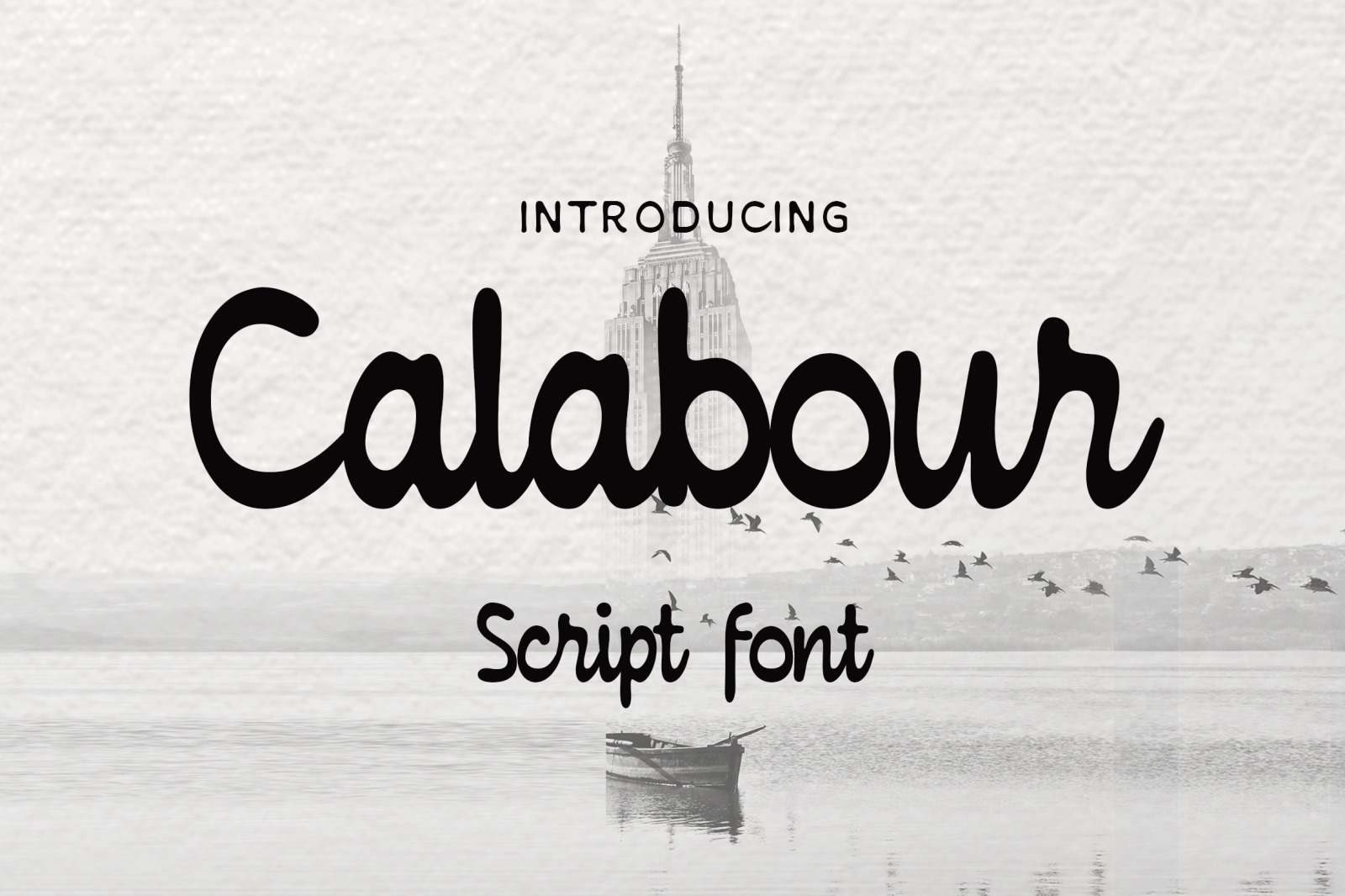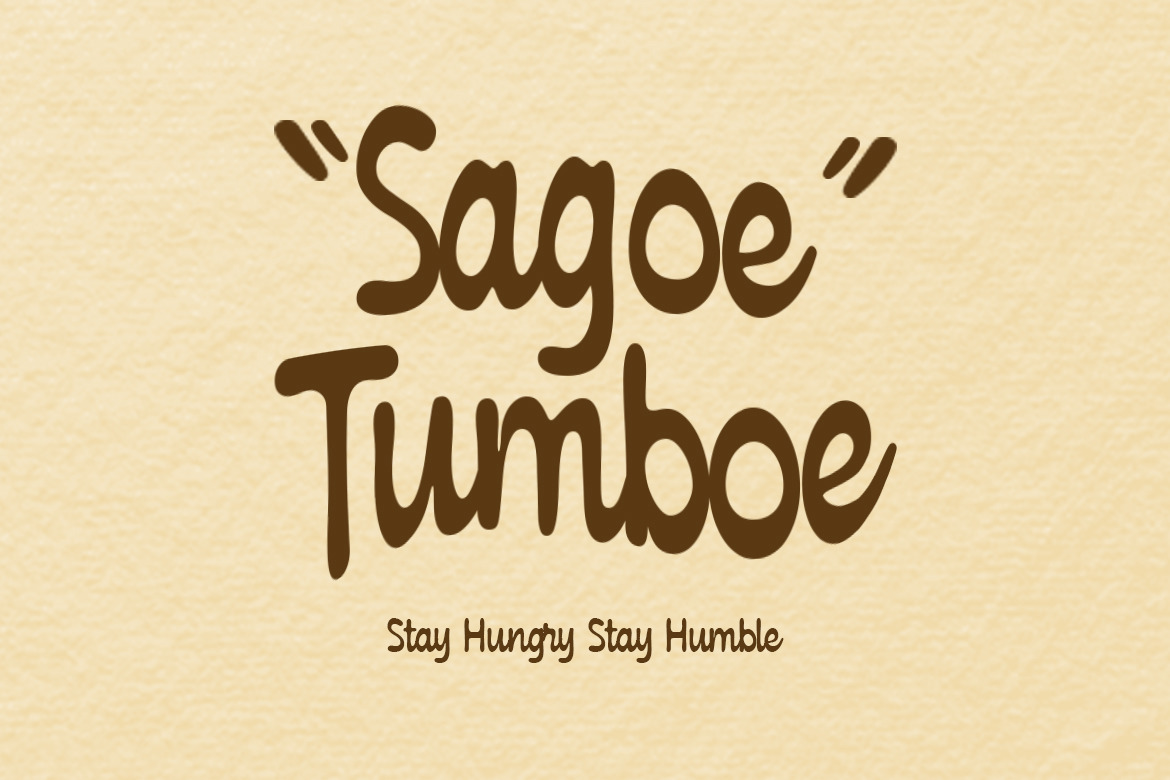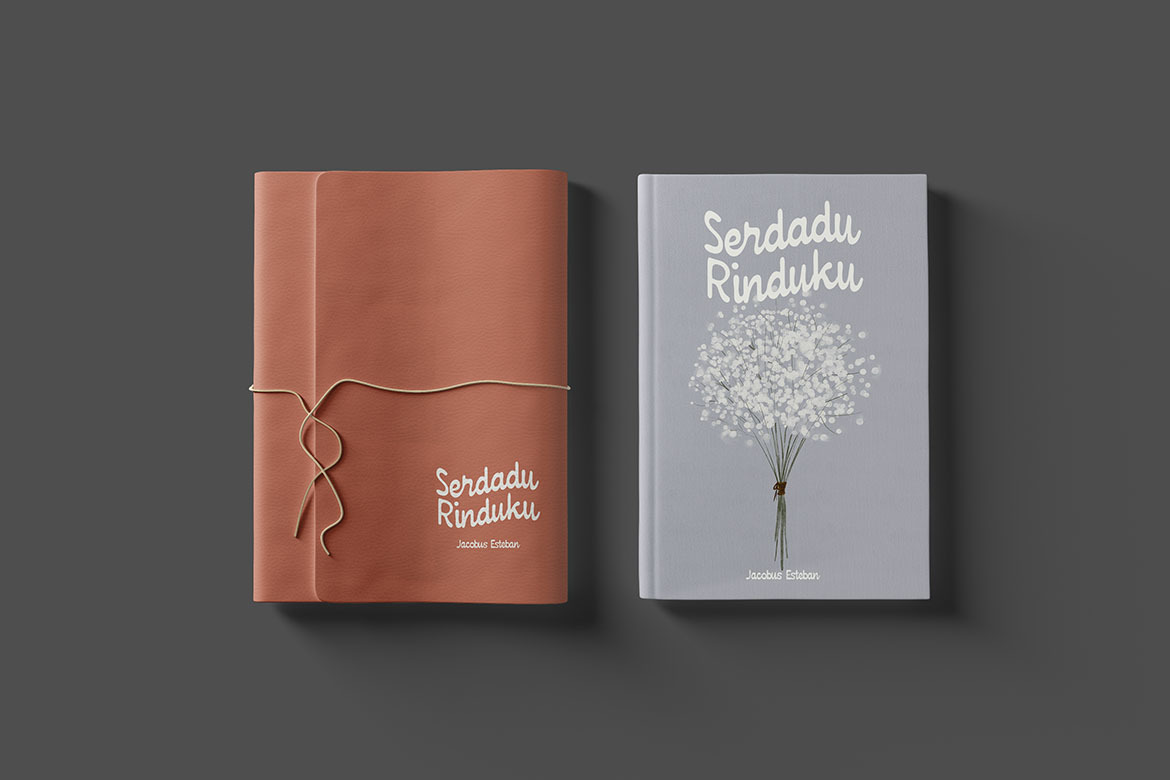
Calabour - Handwrite Script Font
Calabour is a handwrite script font. This minimalist and clean font can easily become your favorite. It can be used for books, magazines, social media posts, invitations, and so much more! So add this to your creations and take your designs to the next level!